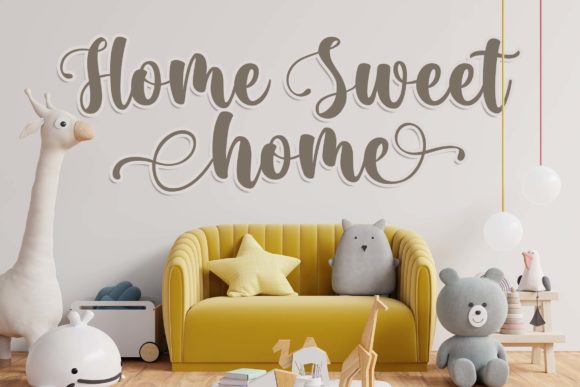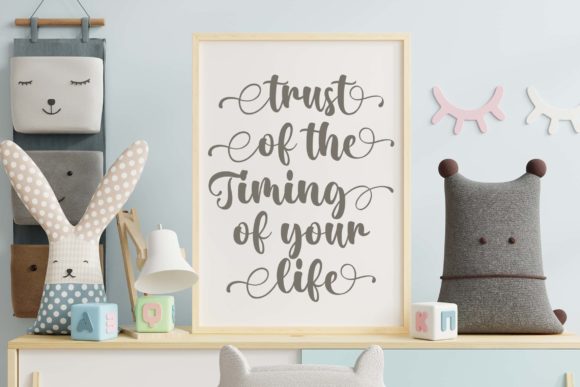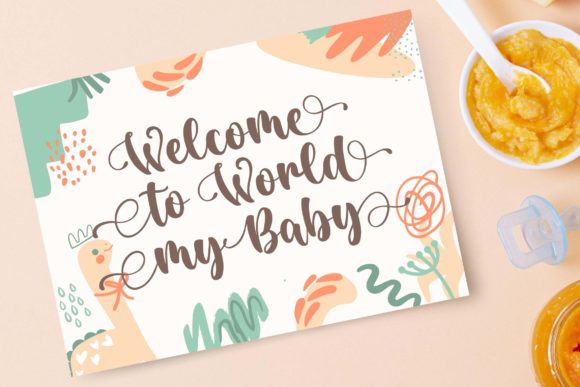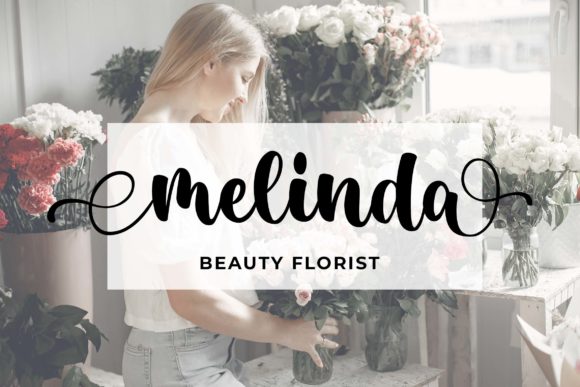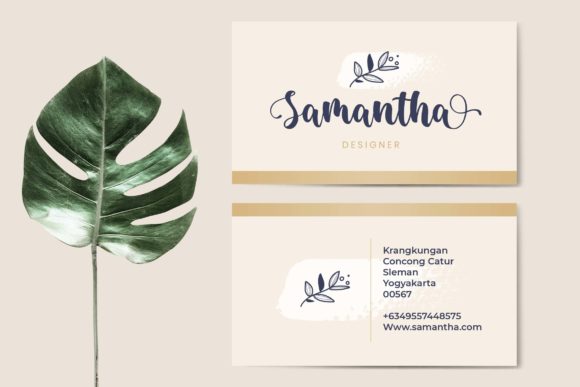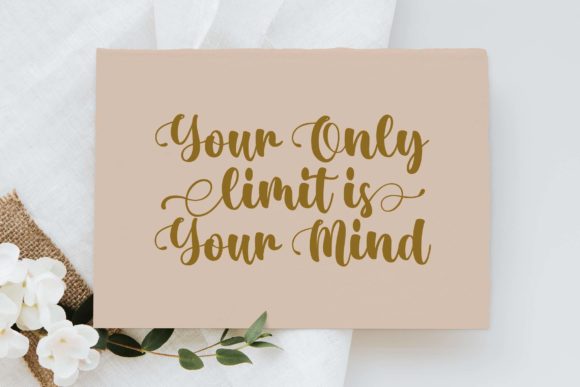
Odesita Font
About Odesita Font
Odesita is a dazzling script font. This font is neatly crafted, highly detailed, and it is also PUA encoded. This means that you can access all glyphs and swashes with ease!